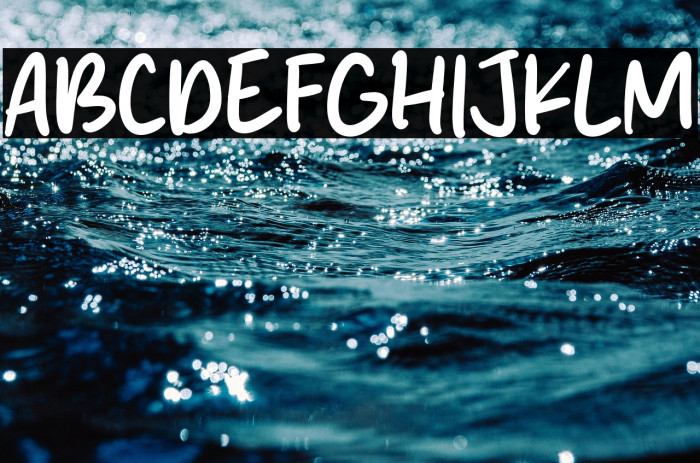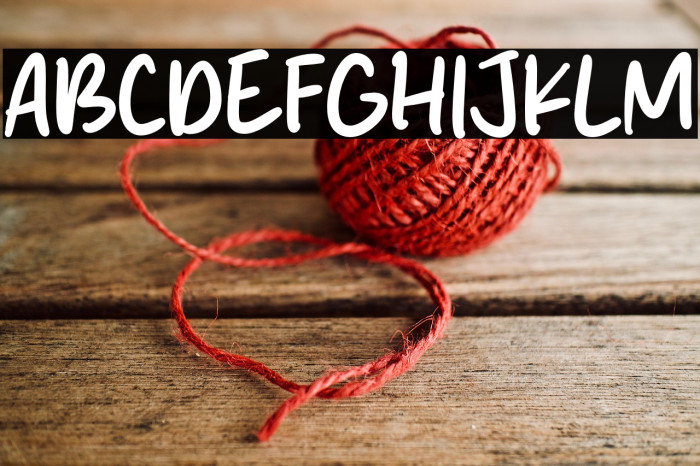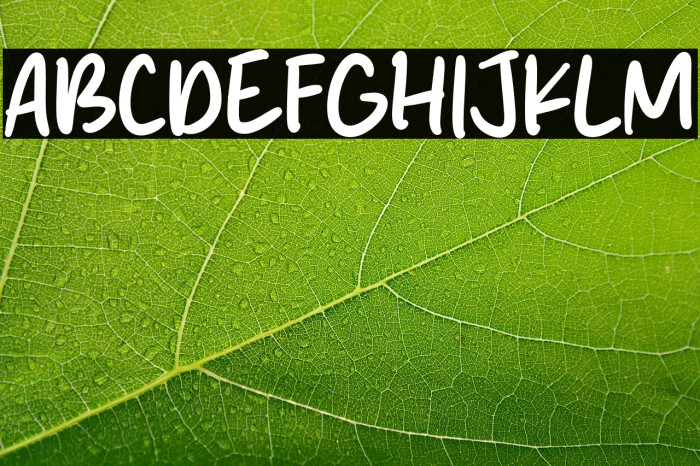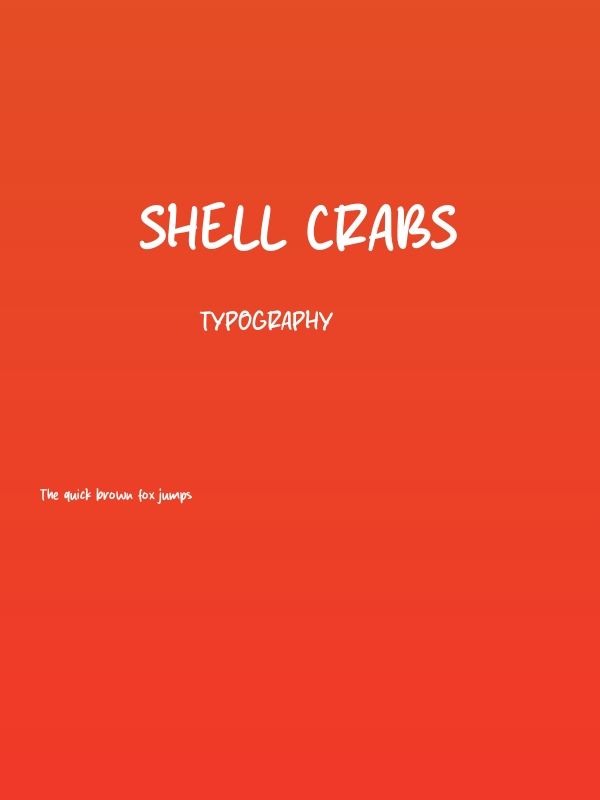
Shell Crabs Font
Shell Crabs Description
This font exudes a playful and casual handwritten style, characterized by its smooth, rounded strokes and slightly irregular letterforms. The uppercase and lowercase letters maintain a consistent flow, with a natural, organic appearance that mimics the fluidity of handwriting. The numerals and special characters are crafted with the same attention to detail, ensuring a cohesive look across all characters. The font's informal yet legible design makes it suitable for a variety of creative applications, adding a personal touch to any project.
| Overall Style | Casual |
| Use Case | Headlines, Logos, Informal Text |
| Proposed Projects | Ideal for greeting cards, invitations, personal branding, and social media graphics. |